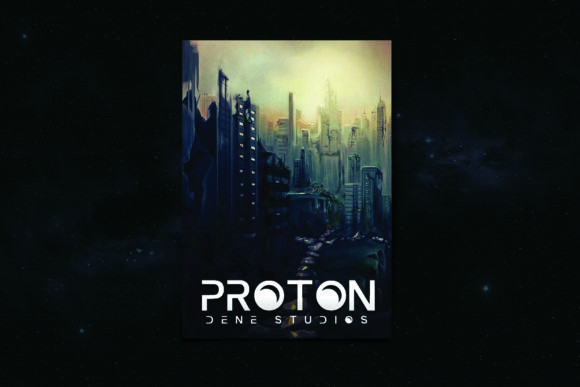
Lost in Space Font
Inspired by the iconic Sci-Fi movie posters of the 50s and 60s, Lost in Space is a delightfully retro-futuristic typeface. Use it to add a nostalgic vibe to your next design idea.